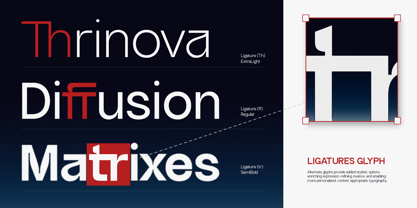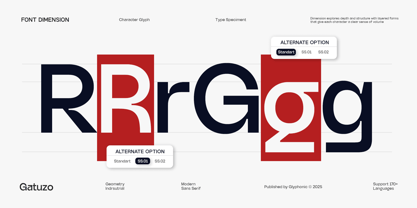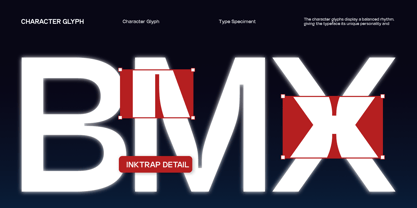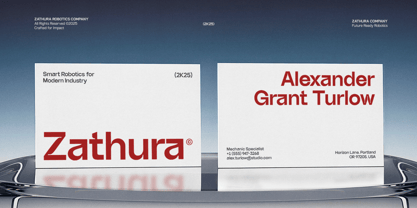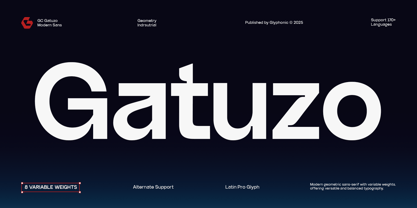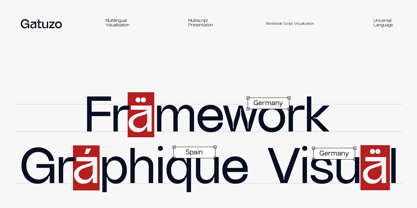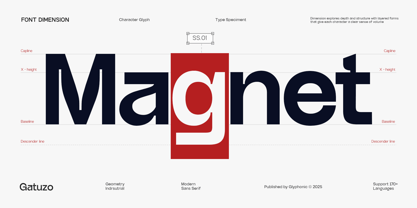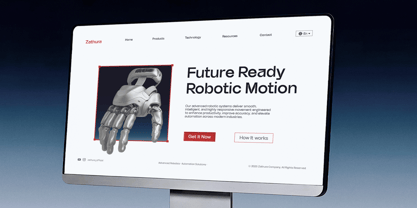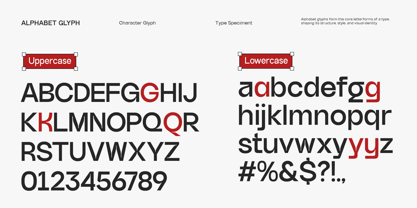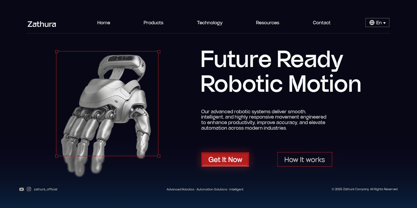
GC Gatuzo
by Onyx Studio
The GC Gatuzo Font Family was designed by Muhammad Hafiizh Solana and published by Onyx Studio. GC Gatuzo contains 8 styles and family package options. More about this family
GC Gatuzo – Geometric Sans is a contemporary sans serif typeface built on strong geometric foundations, designed to deliver clarity, balance, and modern versatility. With clean shapes and confident strokes, it offers a bold yet refined voice that performs seamlessly across both digital and print applications. Crafted to embrace simplicity while maintaining a distinctive character, GC Gatuzo is ideal for branding, editorial layouts, tech-inspired projects, and impactful visual identities. Its well-balanced proportions and precise detailing make the typeface highly adaptable without losing its unique geometric appeal. Whether you’re designing sleek user interfaces, bold headlines, or minimalistic posters, GC Gatuzo brings strength, modernity, and visual clarity to your typography. Features: Uppercase & Lowercase Numbers & Punctuation Modern Geometric Construction Multilingual Support (170+ Languages) Bring clarity, structure, and modern geometric elegance to your designs with GC Gatuzo – Geometric Sans.
Designers: Muhammad Hafiizh Solana
Foundry: Onyx Studio
GC Gatuzo